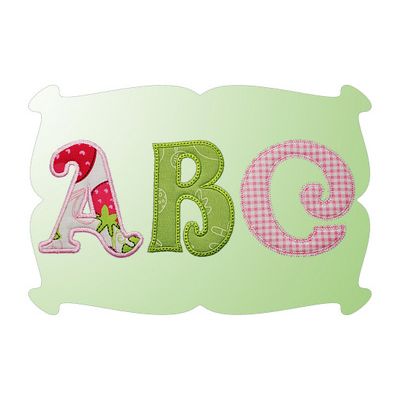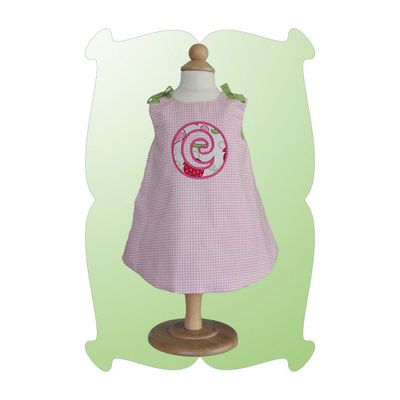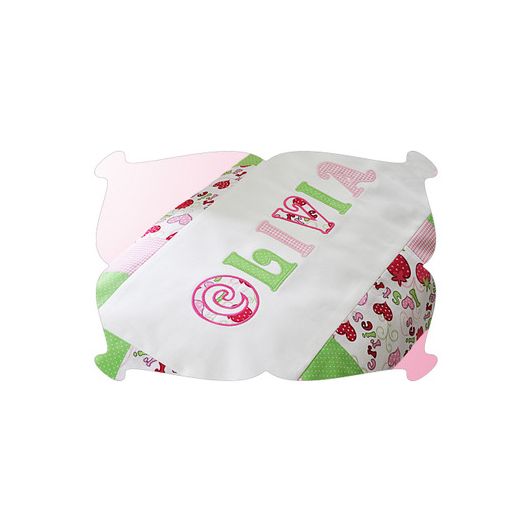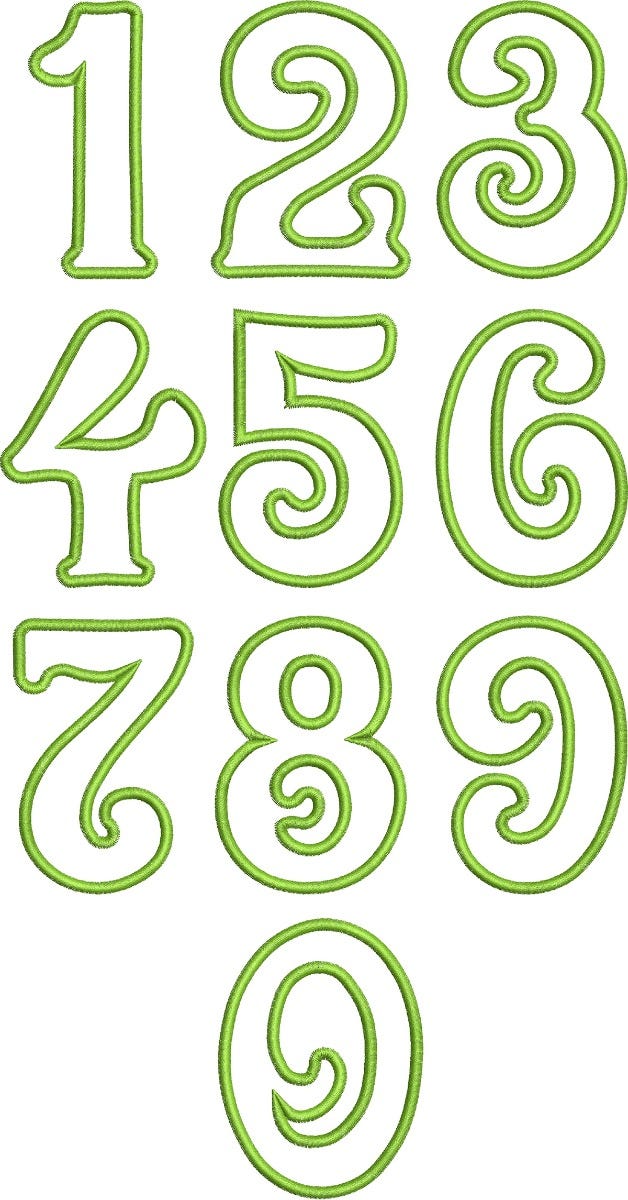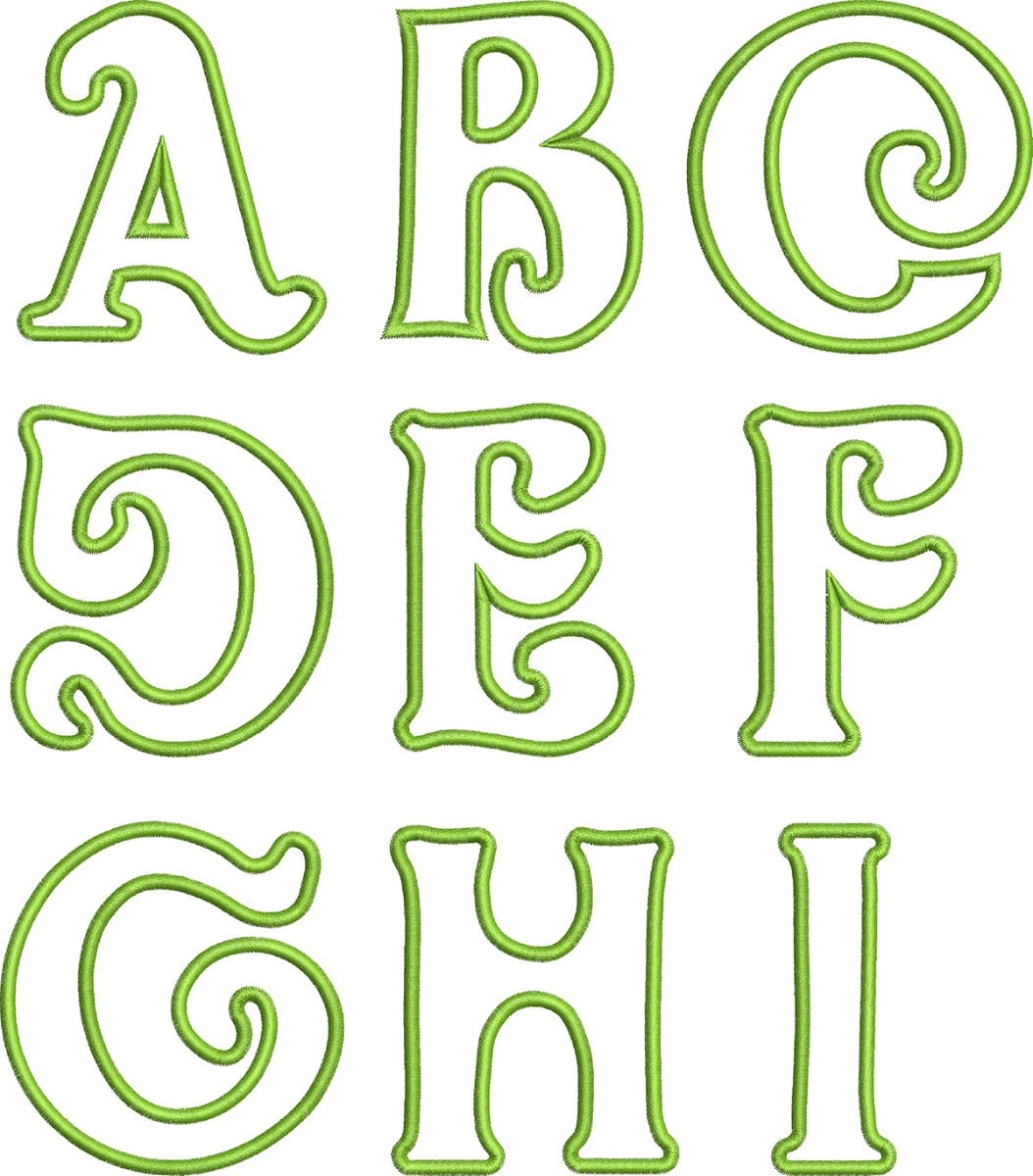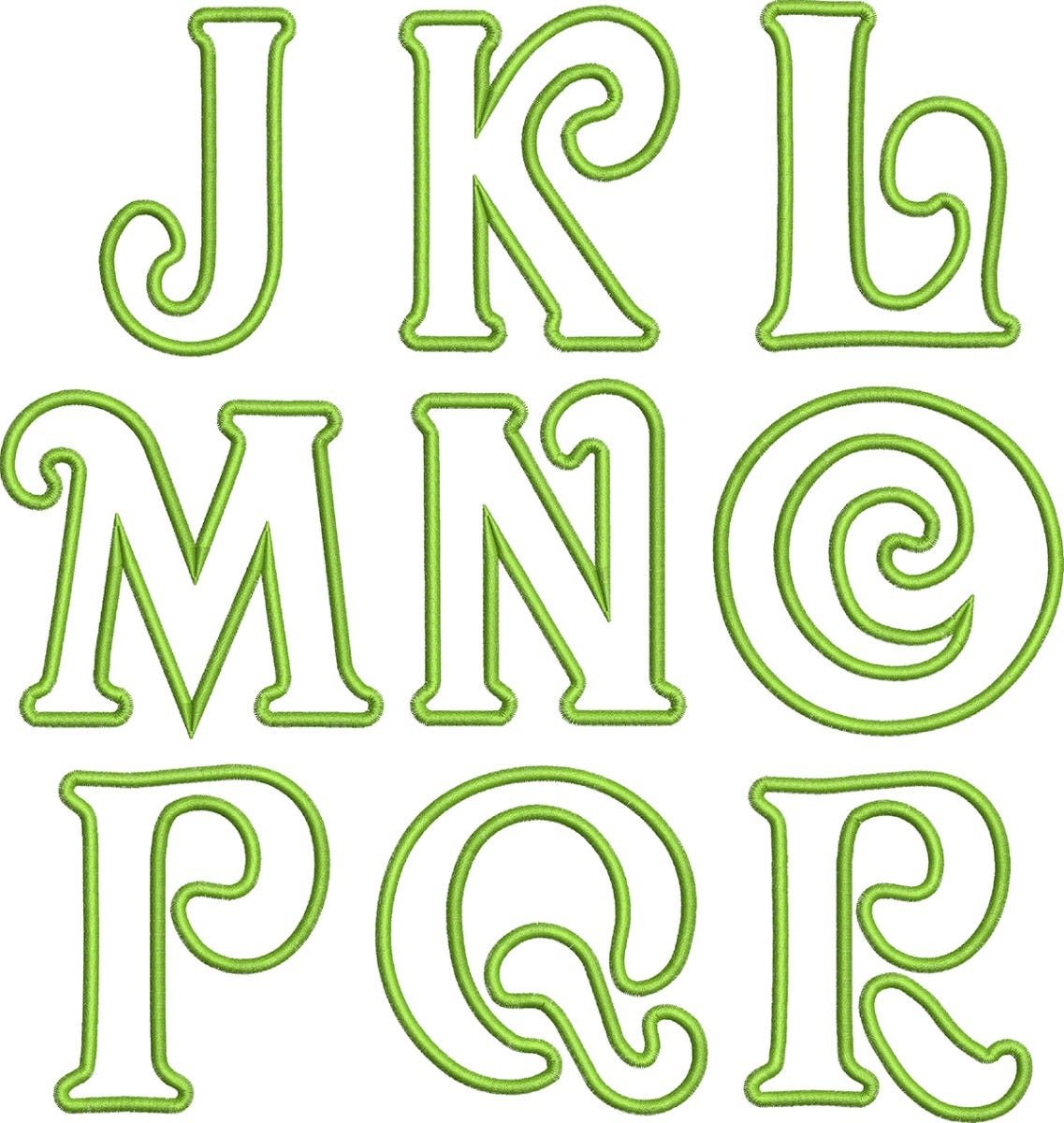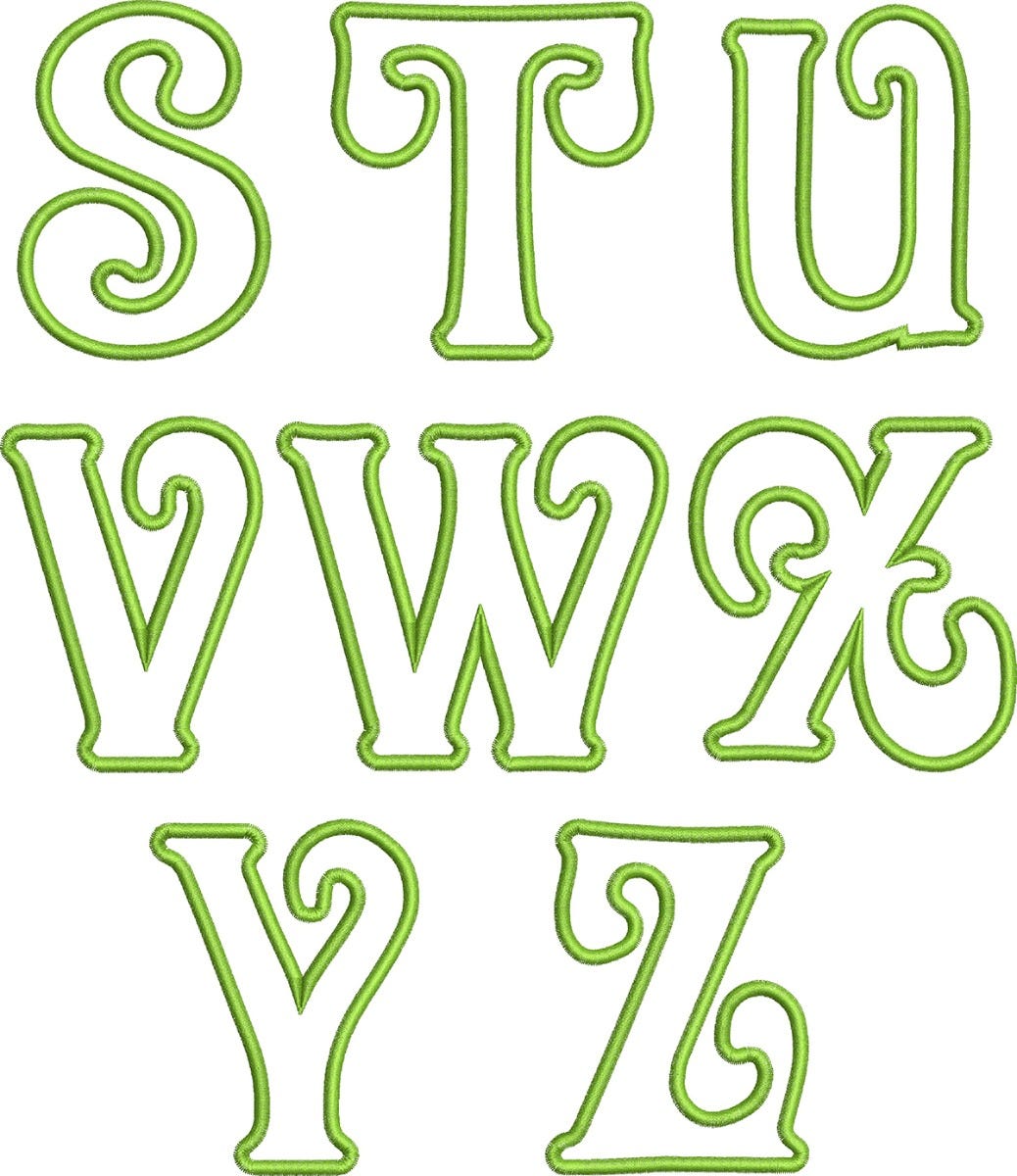
Very Sweet Satin Stitch Applique Embroidery Font
Very Sweet Applique Font
3 finishing styles: satin, zig zag, satin with decorative stitch
Capital letters A thru Z. Numbers 0-9.
Three styles of applique letters:
1. Traditional satin stitch.
2. Tradtional satin stitch with a decorative triple stitch.
3. Quick and easy zig zag stitches.
Very Sweet Applique Font includes capital letters A thru Z and numbers 0 thru 9 in 3 sizes: 3.5, 4.5 and 5.5 inch.